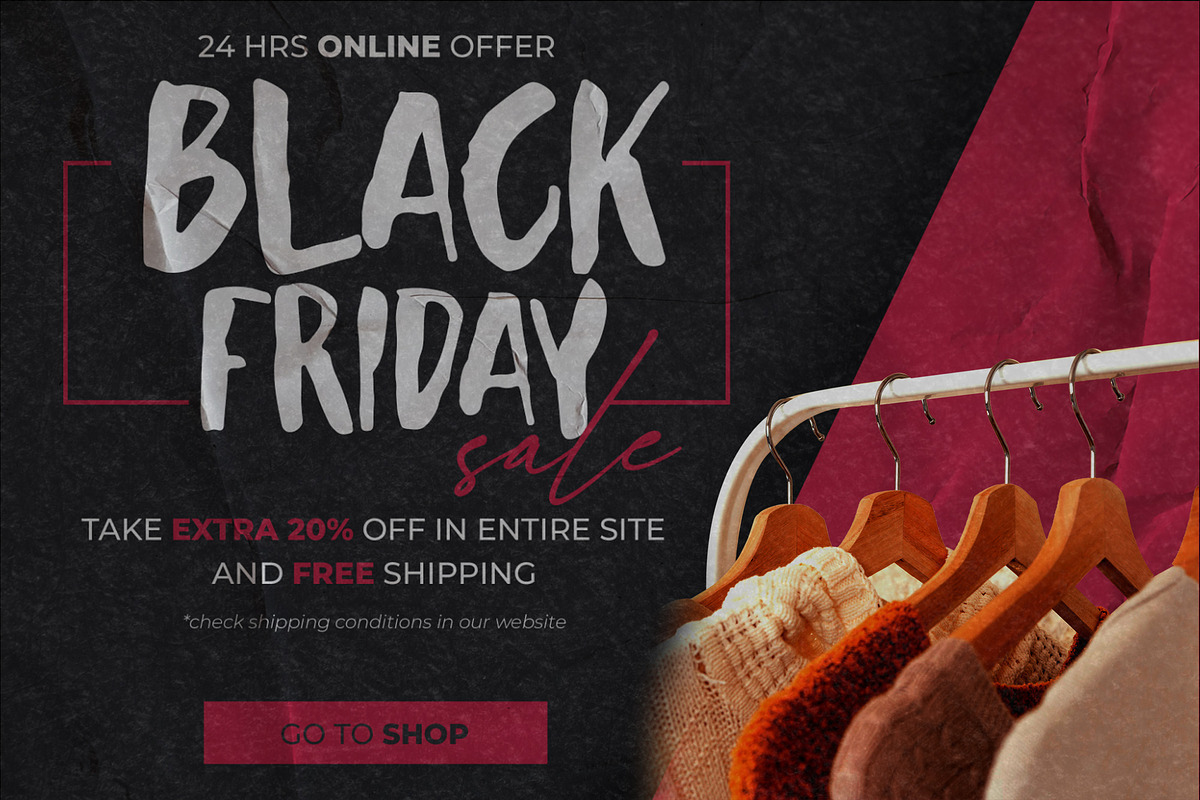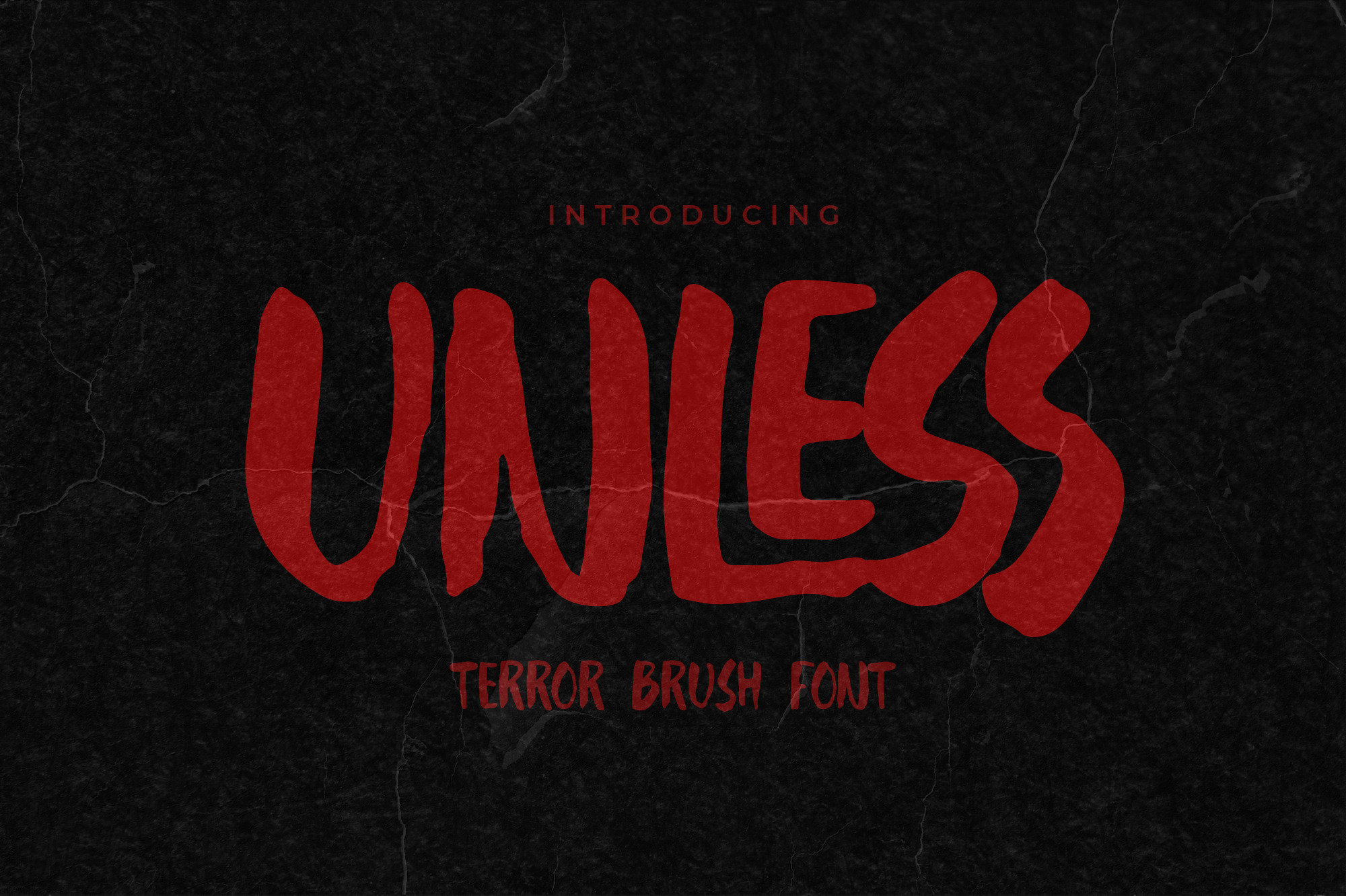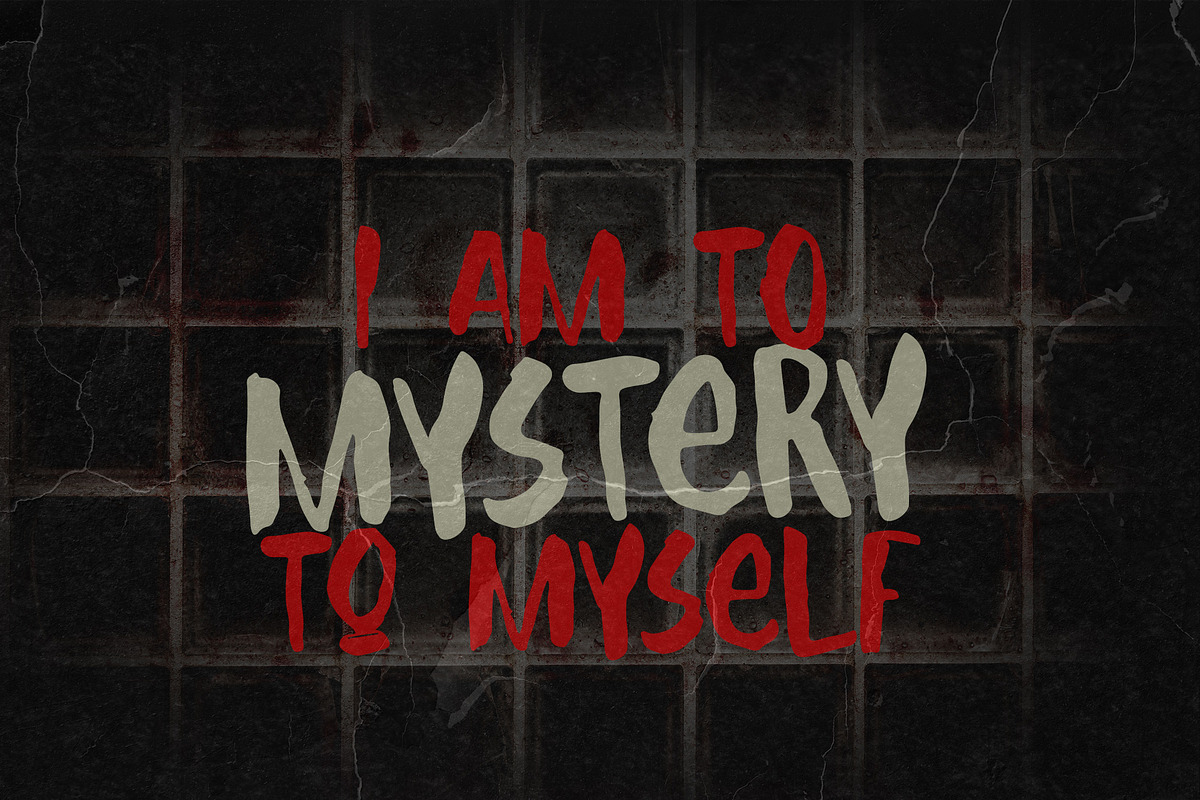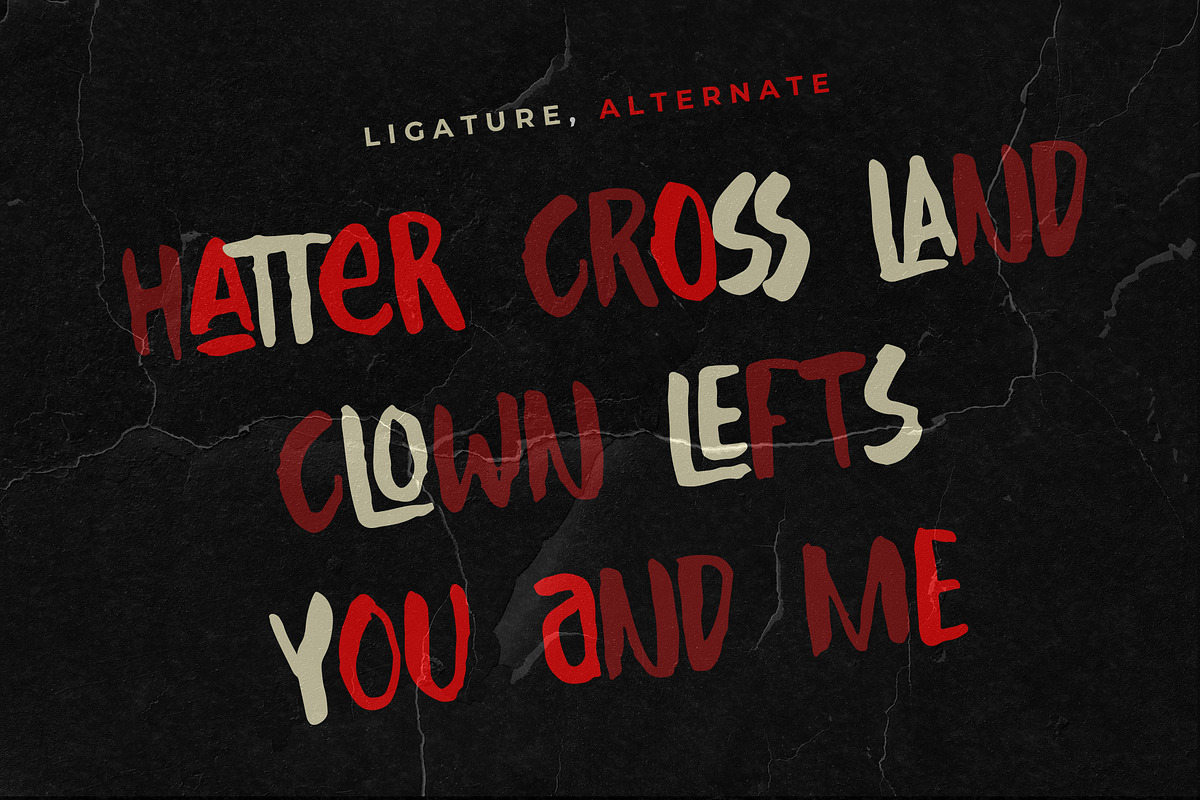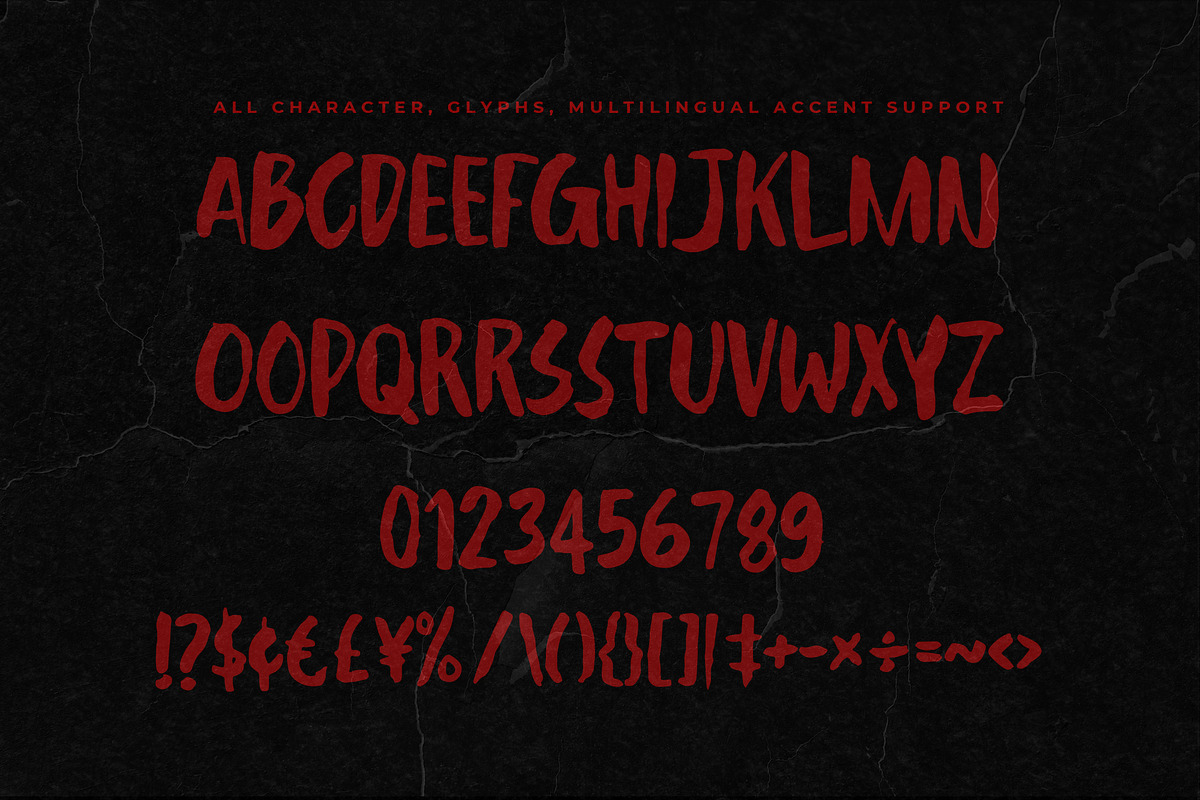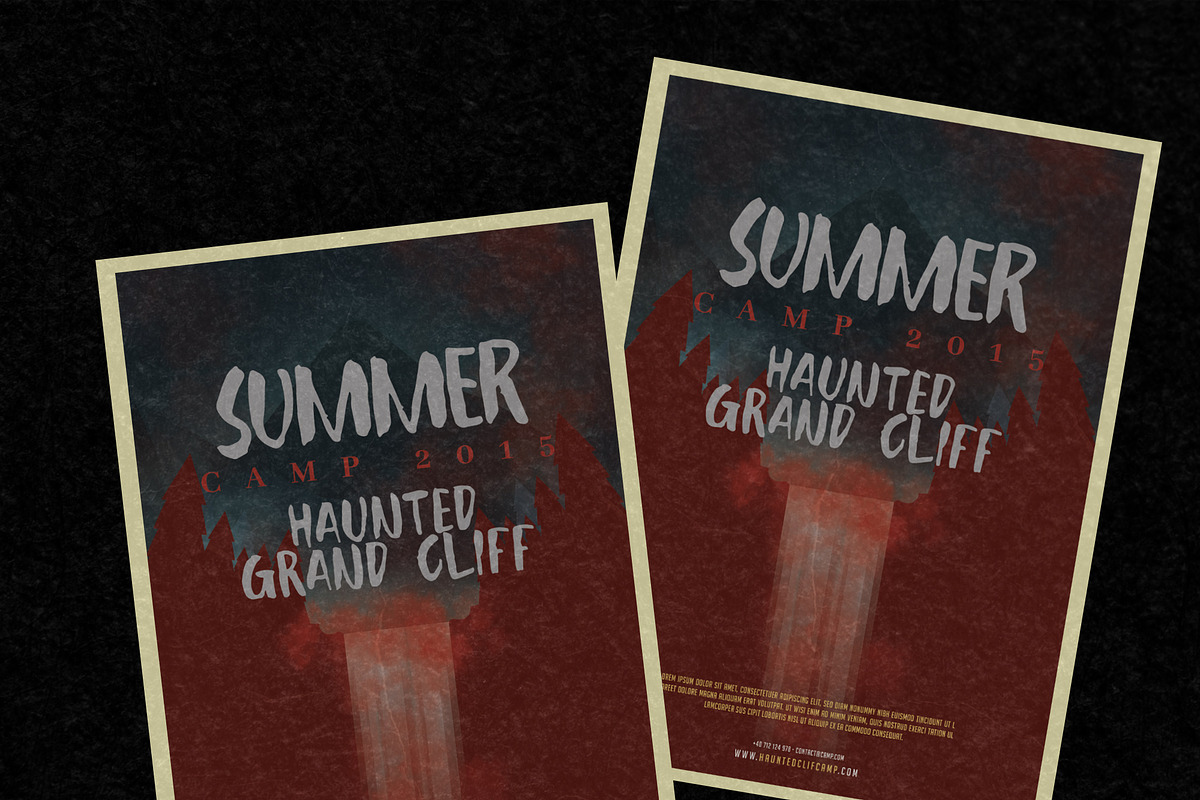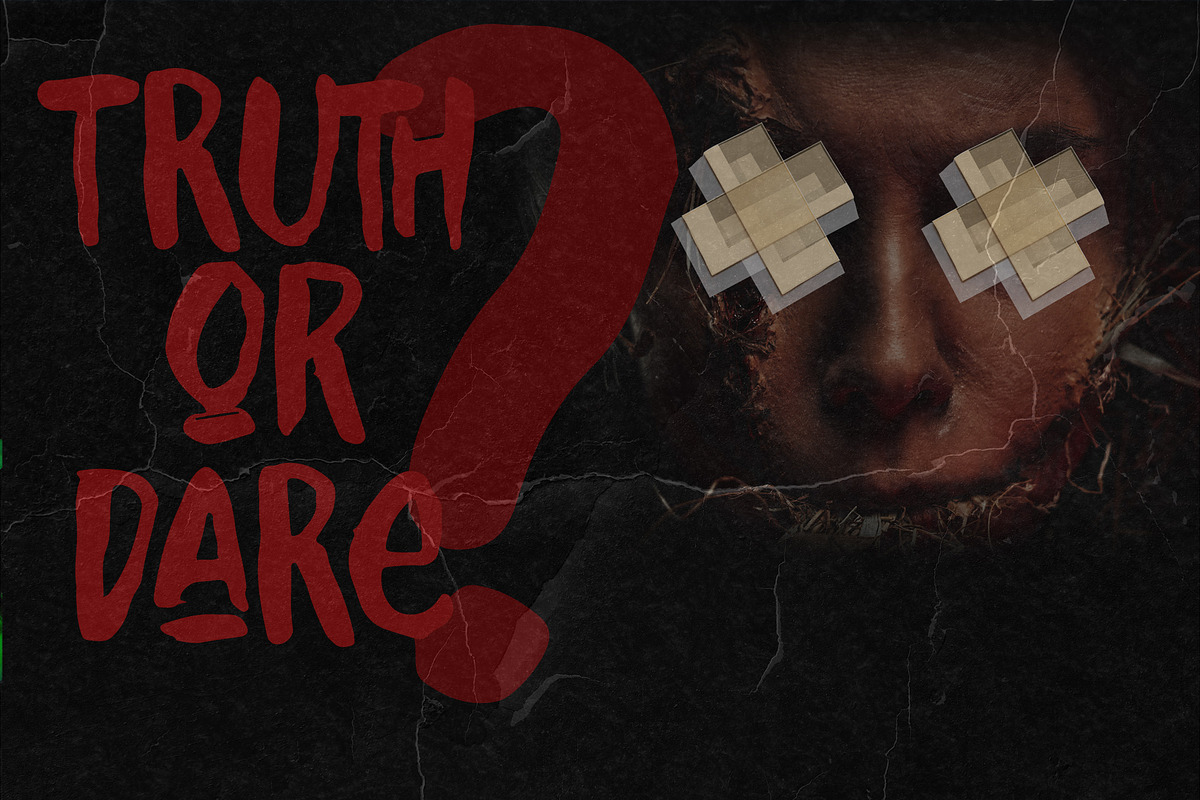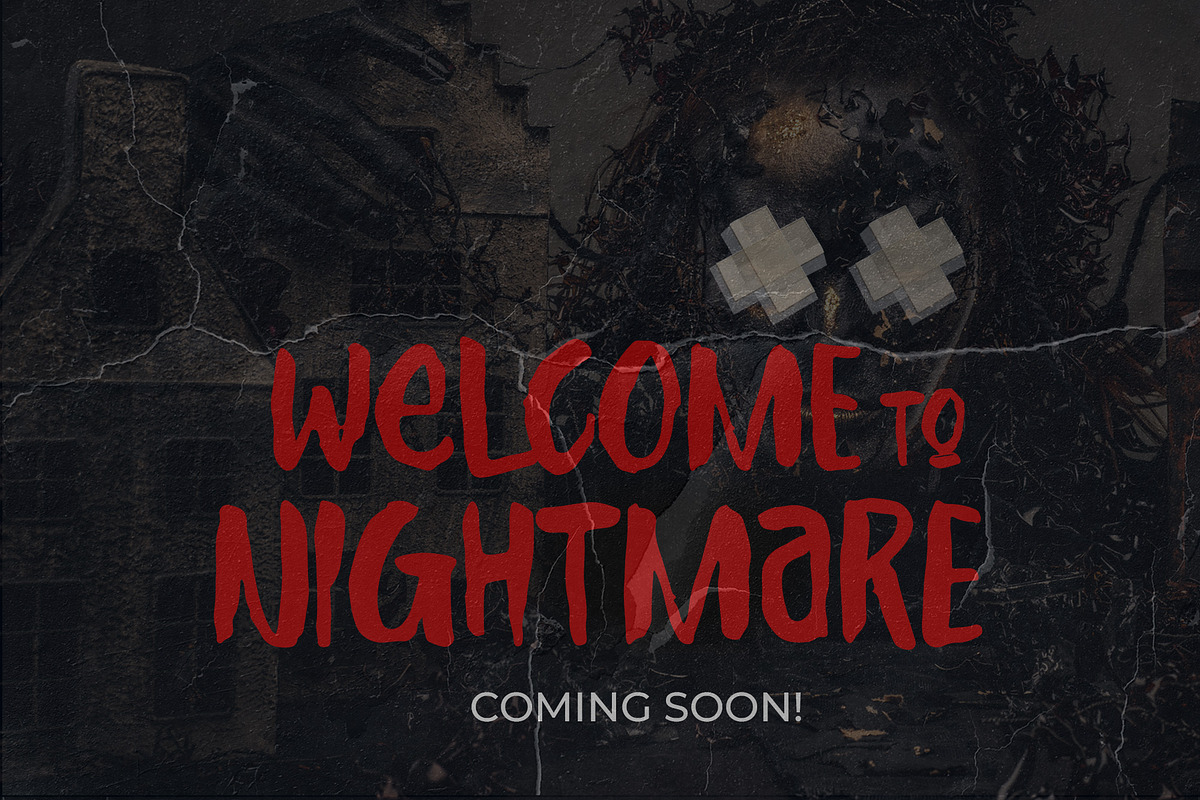
Unless - Terror Brush Font
Introducing of our new product Unless is Terror Brush Font and Multilanguage support font with a dramatic movement with special alternative glyph and Ligature glyph. This font is great for your next creative project such as logos, printed quotes, invitations, cards, product packaging, headers, Logotype, Letterhead, Poster, Label, and etc.
That is why Unless has Rough and strong characteristic more natural look to your text with a more modern look to your text. You can activate Ligature and Alternative glyphs OpenType panel . Unless is perfect for homeware designs,branding projects, Logo design, Quotes product packaging,and cartoon.
- Ligature glyphs
- Alternate glyphs